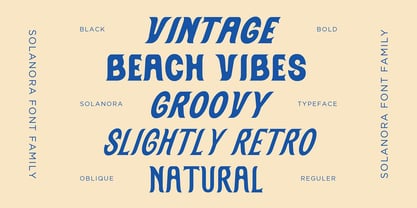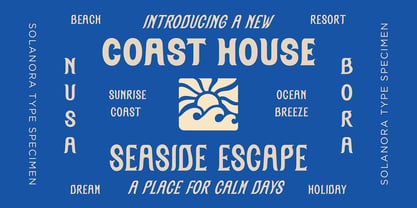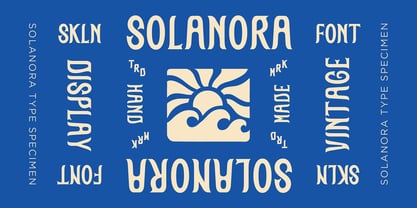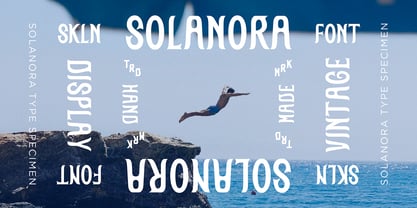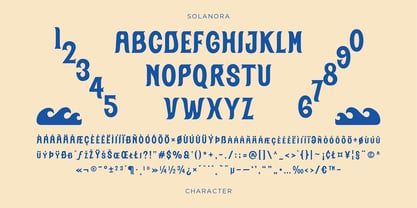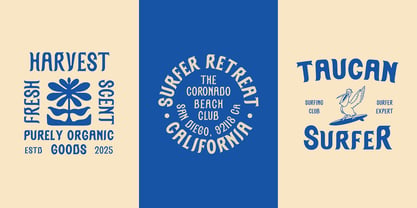
SFC Solanora
by Skilline Fonts Co.
The SFC Solanora Font Family was designed by Ahmad Nur Alfian and published by Skilline Fonts Co.. SFC Solanora contains 6 styles and family package options. More about this family
Solanora Typeface captures the carefree spirit of sunshine, sea breeze, and nostalgic design. This hand-drawn display sans serif features bold shapes enhanced by smooth, wavy details, inspired by mid-century lettering and coastal signage. Each organic curve radiates warmth and playfulness, making it ideal for various design projects. Ideal Applications for Solanora: - Retro beach and surf-inspired branding - Vintage apparel and lifestyle merchandise - Posters, labels, and packaging design - Restaurant or café identity systems - Travel, outdoor, and event graphics With its distinctive blend of styles, Solanora is perfect for crafting memorable and engaging visual identities that resonate with audiences.
Designers: Ahmad Nur Alfian
Foundry: Skilline Fonts Co.
Skilline Fonts Co. is the type foundry of Skilline Design Co., a Yogyakarta-based creative studio specializing in vintage-inspired typography and visual branding. Known for its line-based illustrations, badge-style graphics, and expressive lettering, the foundry creates fonts that capture the warmth of heritage design while maintaining modern usability. Each typeface is carefully crafted to bring character, authenticity, and timeless appeal to branding, packaging, signage, apparel, editorial projects, and digital media. Drawing inspiration from classic Americana, rustic craftsmanship, retro advertising, and traditional print culture, Skilline Fonts Co. develops distinctive font families that help designers create memorable and impactful visual identities.